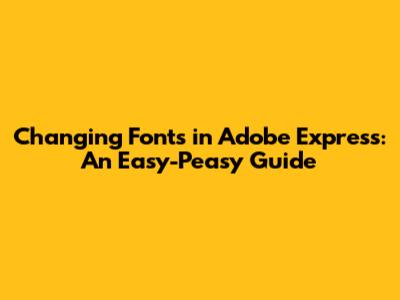
- Consider Your Brand: Your font should align with your brand's personality and values. If you have a brand style guide, refer to it for font recommendations.
- Readability is Key: Make sure your font is easy to read, especially for body text. Avoid overly decorative or complex fonts that can strain the eyes.
- Use Font Pairings: Combine different fonts to create visual interest. A common approach is to pair a bold heading font with a simpler body text font.
- Limit Your Font Choices: Stick to a maximum of two or three fonts per project to maintain a cohesive and professional look.
- Test Different Options: Don't be afraid to experiment with different fonts and see what works best for your design. Adobe Express makes it easy to preview fonts in real-time, so take advantage of this feature.
- Font Not Displaying Correctly: This can happen if the font is not properly installed or if there's a compatibility issue. Try restarting Adobe Express or your computer. If that doesn't work, try reinstalling the font.
- Font Size Too Small or Too Large: Adjust the font size using the "Size" slider in the right-hand panel. You can also manually enter a font size in the text box.
- Font Not Available: If a font is not available in Adobe Express, it may not be supported or you may need to activate it from Adobe Fonts. Check the Adobe Fonts library or try uploading the font yourself.
Hey guys! Ever found yourself fiddling with Adobe Express, trying to figure out how to swap out that one font that just doesn't vibe with your design? You're not alone! Adobe Express is super user-friendly, but sometimes the simplest things can feel like a maze. So, let's break down exactly how to change fonts in Adobe Express, making your design journey smooth and fun. No more font-related headaches, promise!
Why Bother Changing Fonts?
Before we dive into the how, let's quickly touch on the why. Fonts are more than just letters; they're a crucial part of your visual identity. The right font can scream professionalism, whisper elegance, or shout fun! Using the right font can significantly elevate your design and help you communicate your message more effectively. Think about it: would you use Comic Sans for a legal document? Probably not! Different fonts evoke different emotions and associations, so choosing wisely is key.
Imagine you're designing a poster for a music festival. A playful, bold font might capture the energy and excitement of the event. On the other hand, if you're creating a wedding invitation, a delicate and elegant script font would be more appropriate. Fonts set the tone and personality of your design. They guide the viewer's eye and help create a cohesive and impactful visual experience. That's why mastering font selection and customization is a must for any designer, whether you're a seasoned pro or just starting out.
And, hey, sometimes you just don't like the default font! Maybe it doesn't match your brand, or perhaps you're just feeling a bit adventurous and want to try something new. That's perfectly fine! Design is all about experimentation and finding what works best for you. Adobe Express offers a wide variety of fonts to choose from, so you're sure to find something that sparks your creativity. So let's get into the fun part and learn how to change fonts like a pro!
Step-by-Step: Changing Fonts in Adobe Express
Okay, let's get down to the nitty-gritty. Here’s a simple, step-by-step guide on how to change fonts in Adobe Express:
Step 1: Open Your Project
First things first, fire up Adobe Express and open the project you're working on. Whether it's a social media graphic, a poster, or anything else, make sure you have the project ready to go. If you're starting from scratch, create a new project and add some text to it. You can do this by clicking on the "Text" tool in the left-hand panel and typing in your desired text. Don't worry about the font just yet; we'll get to that in the next step.
Step 2: Select the Text
Next, you need to select the text you want to change. Just click on the text box, and you should see a blue outline appear around it. This indicates that the text is selected and ready to be edited. If you have multiple text boxes in your project, make sure you select the correct one. You can also select multiple text boxes by holding down the Shift key while clicking on each one. This is useful if you want to apply the same font to multiple text elements at once.
Step 3: Find the Font Options
Once your text is selected, look to the right-hand panel. You should see a bunch of options related to text editing. Look for the dropdown menu that displays the current font name. It's usually located at the top of the panel, under the "Text" section. This is where the magic happens! This dropdown menu is your gateway to a world of font possibilities. Clicking on it will reveal a list of all the fonts available in Adobe Express.
Step 4: Choose Your New Font
Now comes the fun part: browsing and selecting your new font! Click on the font dropdown menu, and a list of fonts will appear. You can scroll through the list to see all the available options. Adobe Express also allows you to filter fonts by category, such as serif, sans-serif, script, and more. This can be helpful if you're looking for a specific type of font. As you scroll through the list, the text in your project will update in real-time, allowing you to preview how each font looks. This is a great way to experiment and find the perfect font for your design. Once you find a font you like, simply click on it to apply it to your selected text.